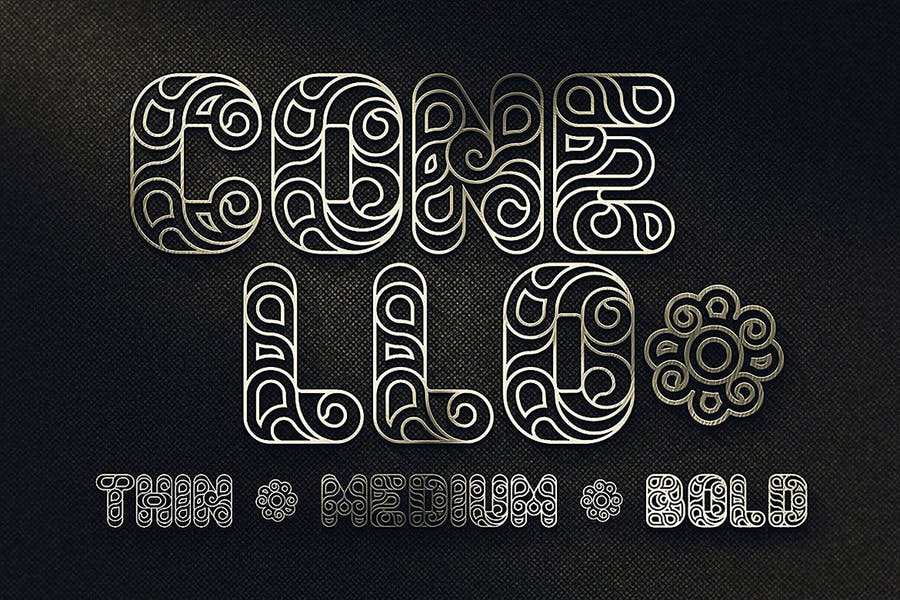
Conello - Display Font
Conello Display Font is perfect for playful children's branding, cute pet shop signage, adorable toy packaging, sweet confectionery marketing, whimsical event graphics, endearing family communications, charming nursery designs, and delightful youth-oriented campaigns.
What makes Conello Display Font exciting is its adorable charm that embodies innocent sweetness and playful endearment with whimsical character and heartwarming appeal. The font features rounded letterforms with cuddly proportions and loveable character variations that evoke stuffed animals, children's storybooks, and the tender joy of childhood wonder and innocent play. Its distinctive cute styling and endearing appeal communicate warmth, innocence, and playful affection, making every message feel hugged with love and touched by the pure sweetness of childhood magic and adorable charm.
The Conello Display Font family includes regular weight with uppercase and lowercase letters, numerals, punctuation marks, and special characters. Premium versions often feature playful alternates and cute elements that enhance the adorable, whimsical aesthetic perfect for children's and family applications.
The endearing character of Conello Display Font makes it particularly valuable for children's toy companies, family entertainment venues, and cute retail businesses. Its excellent readability ensures family messaging and children's communications remain clear while maintaining the distinctive adorable aesthetic that appeals to families seeking sweet experiences and innocent childhood joy.
Family-friendly marketers appreciate how Conello Display Font effortlessly conveys cute authenticity and innocent charm. The font's rounded proportions and adorable details create heartwarming brand materials that establish emotional connections with audiences who value childhood innocence, family sweetness, and the endearing beauty of cute design and playful affection.
The versatile cuteness of this typeface extends to children's education, family services, and innocent entertainment where adorable authenticity enhances family appeal and sweet positioning. Conello Display Font Free Download provides creative professionals with an essential tool for developing memorable, charm-driven designs that resonate with audiences who embrace childhood sweetness, innocent play, and the adorable warmth of cute family experiences in their children's and family-oriented activities.